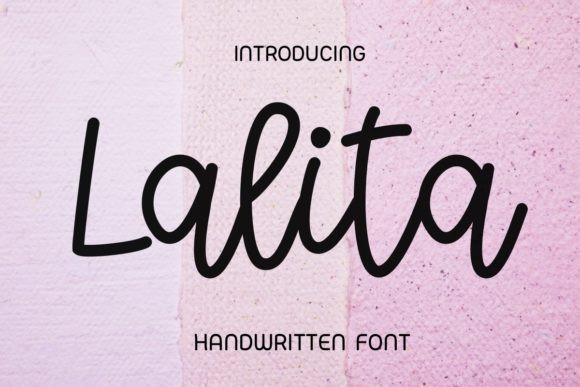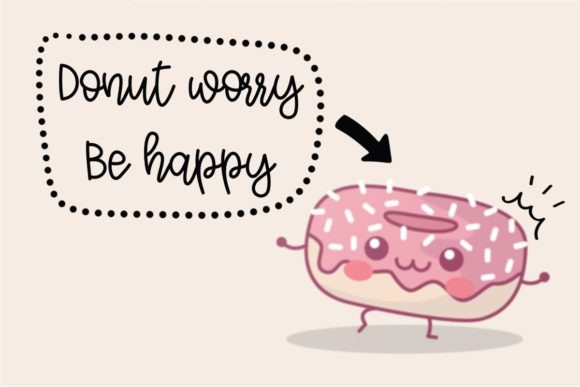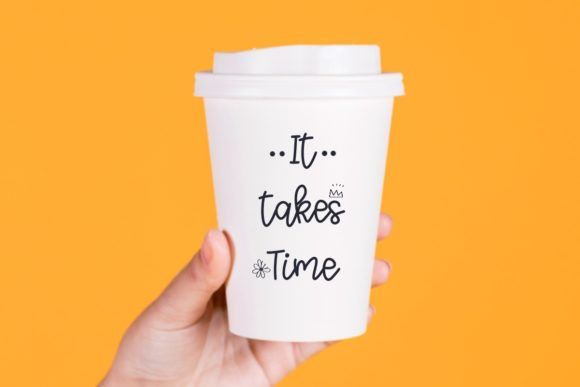
Lalita Font
Lalita is a cute and fun handwritten font. Clean and a little bit quirky, this font is the perfect fit for all of your logos, branding, social media, and crafty DIY projects.